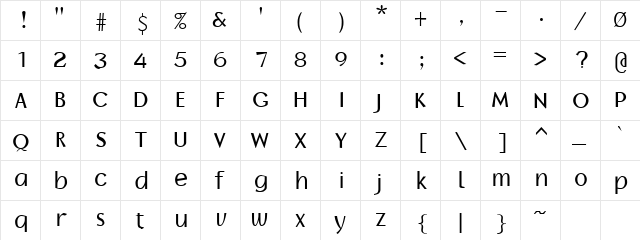
Ziegfeld Normal
Design Context for Ziegfeld Typeface
Ziegfeld takes a measured approach to typography — its balanced proportions and neutral character make it a reliable workhorse for both digital and print work.